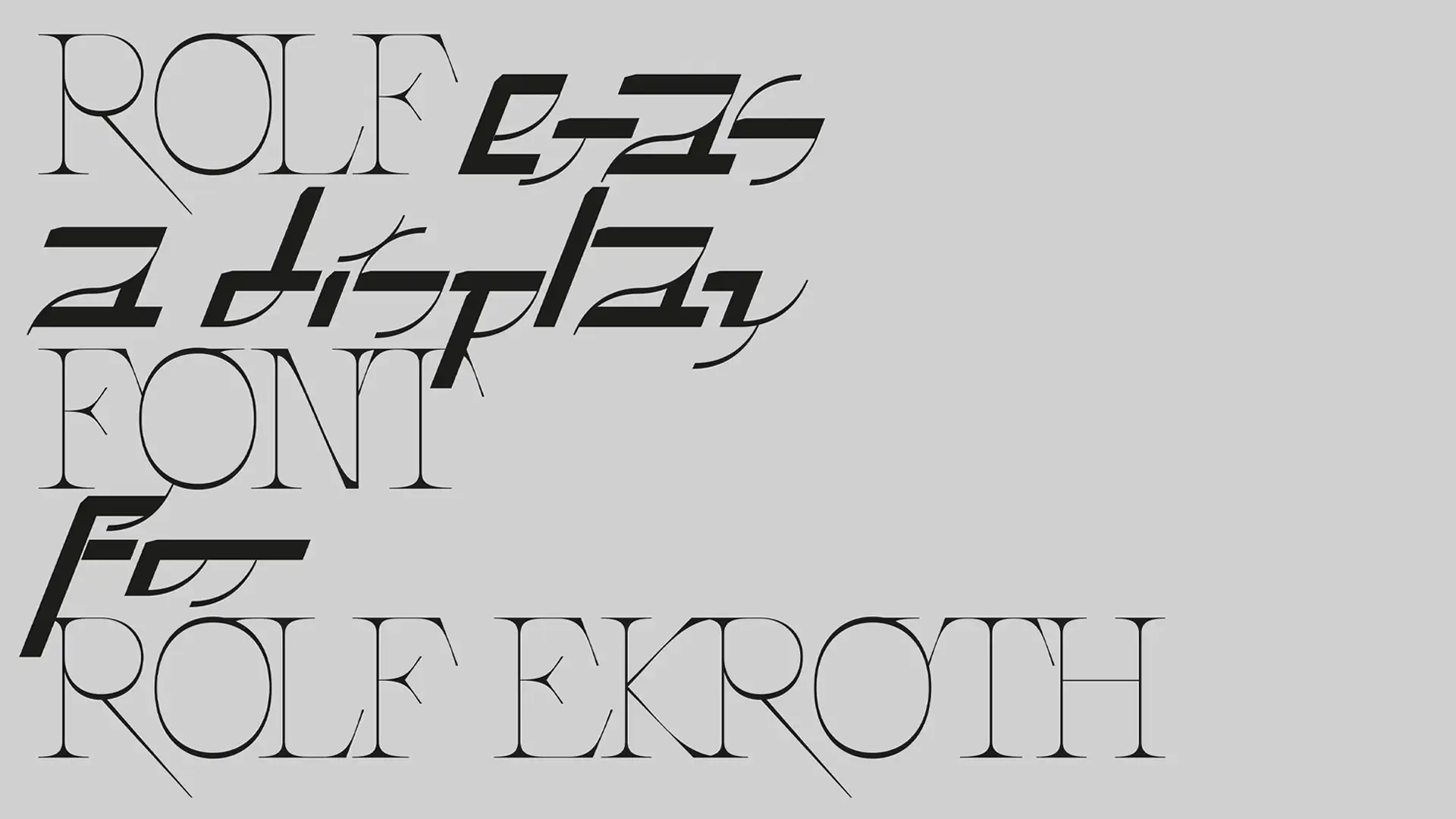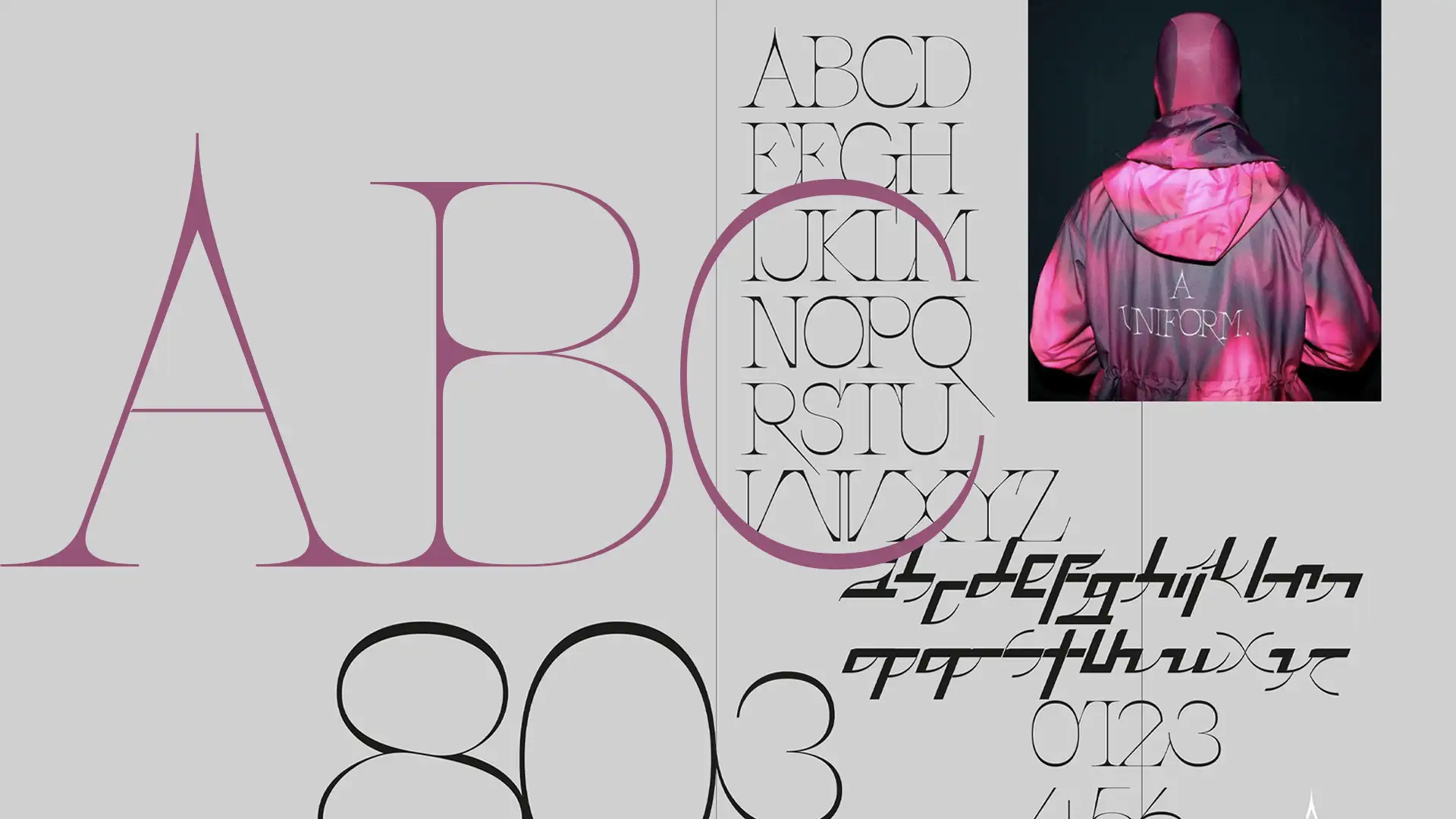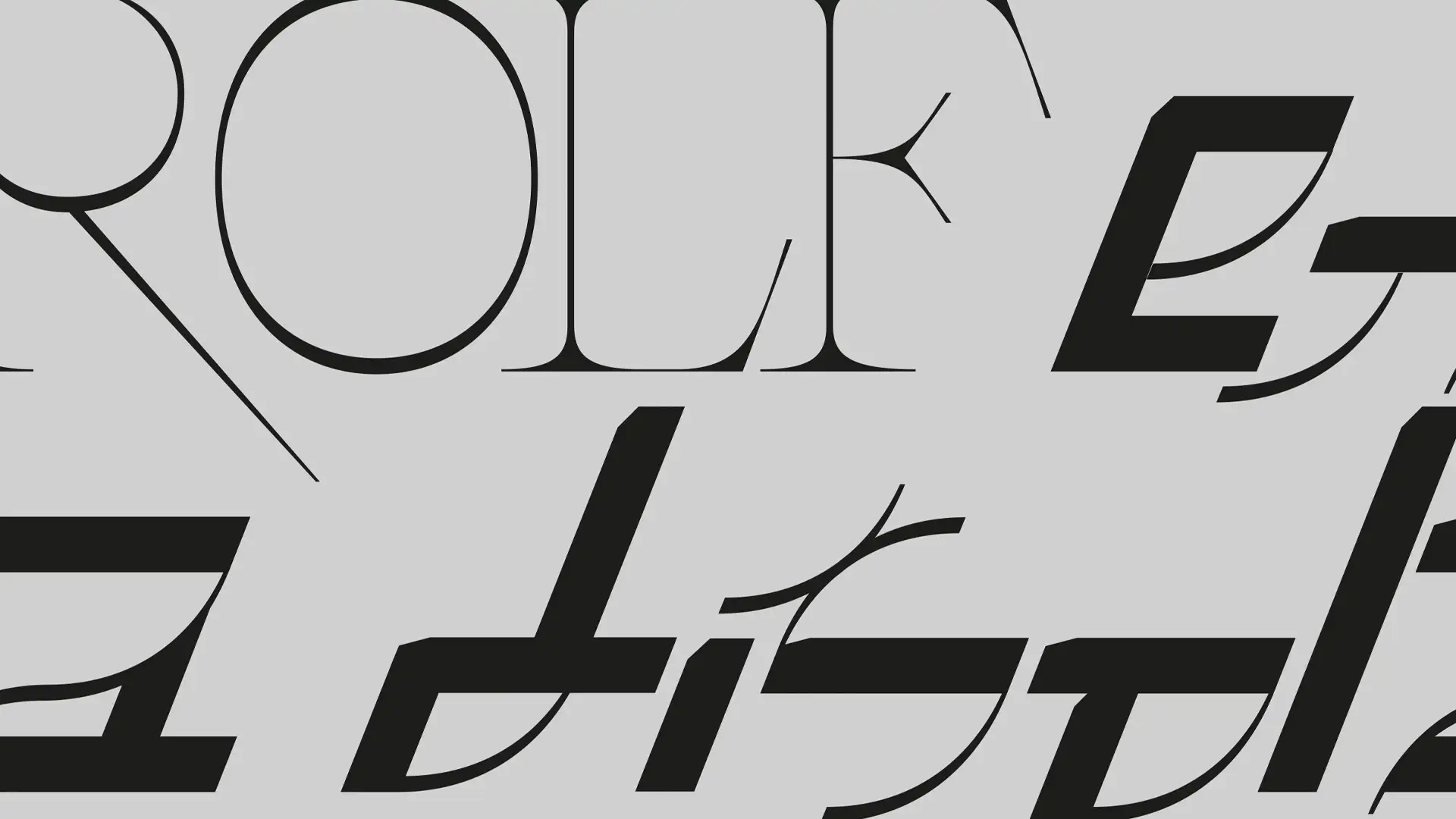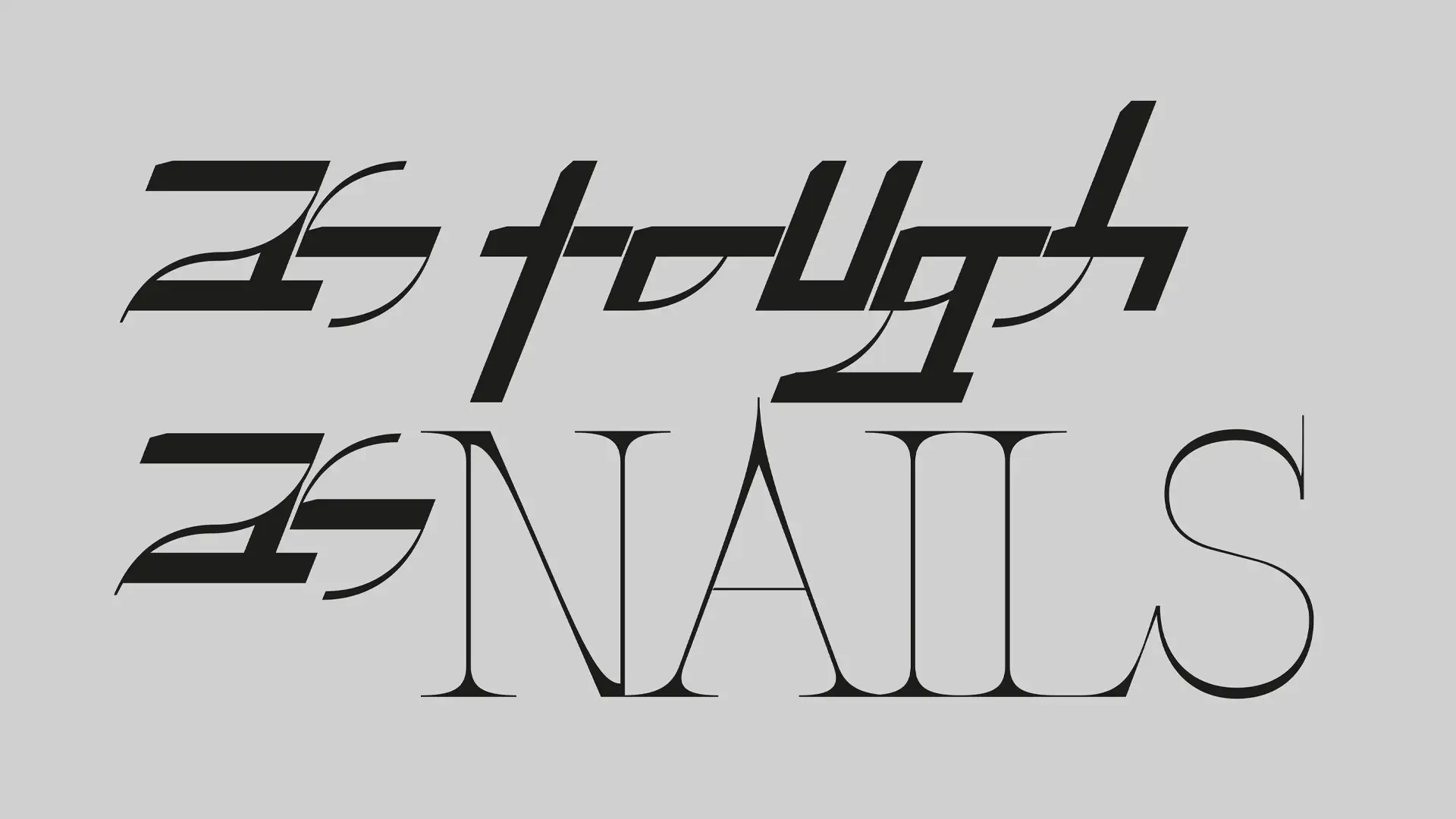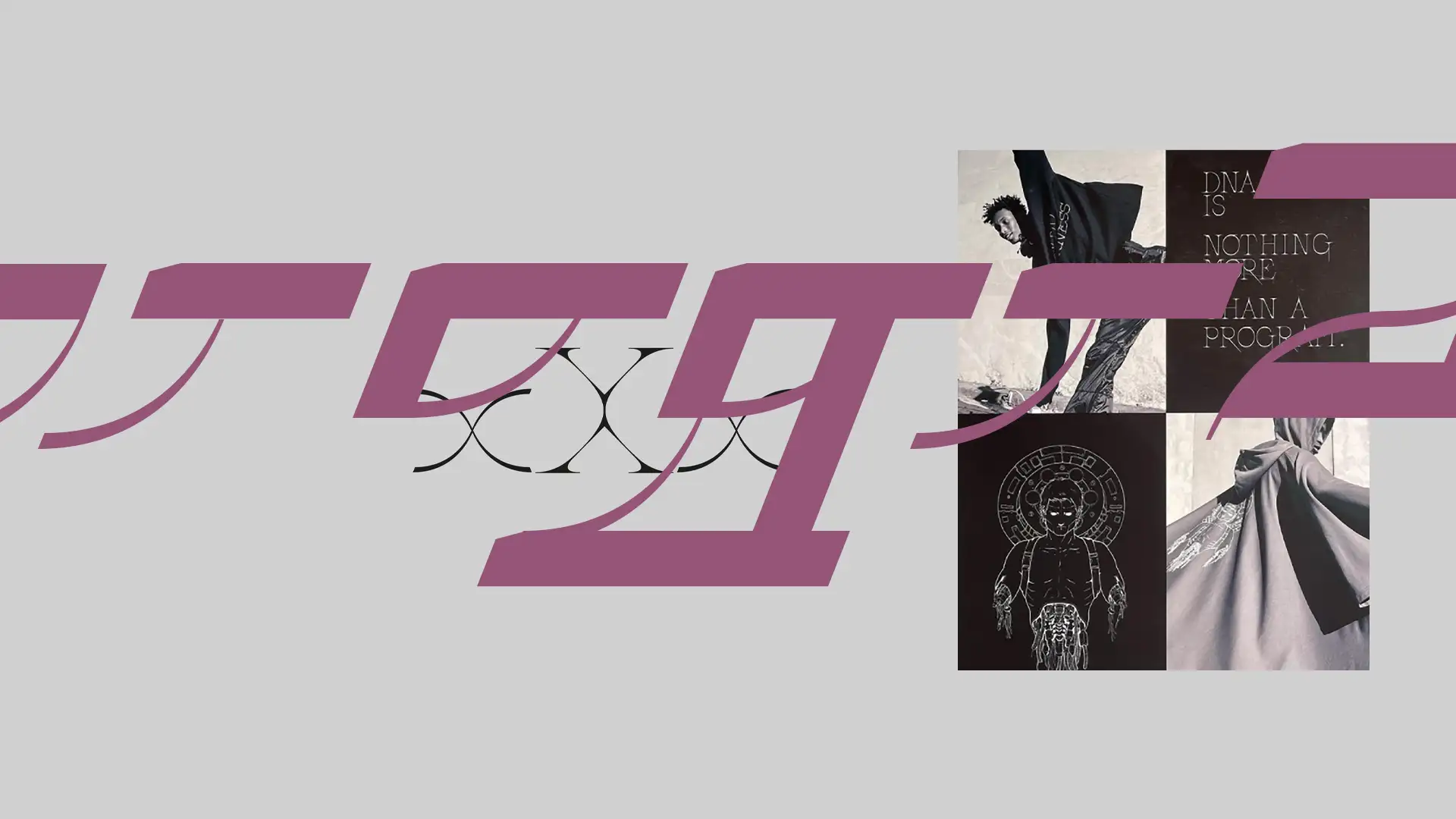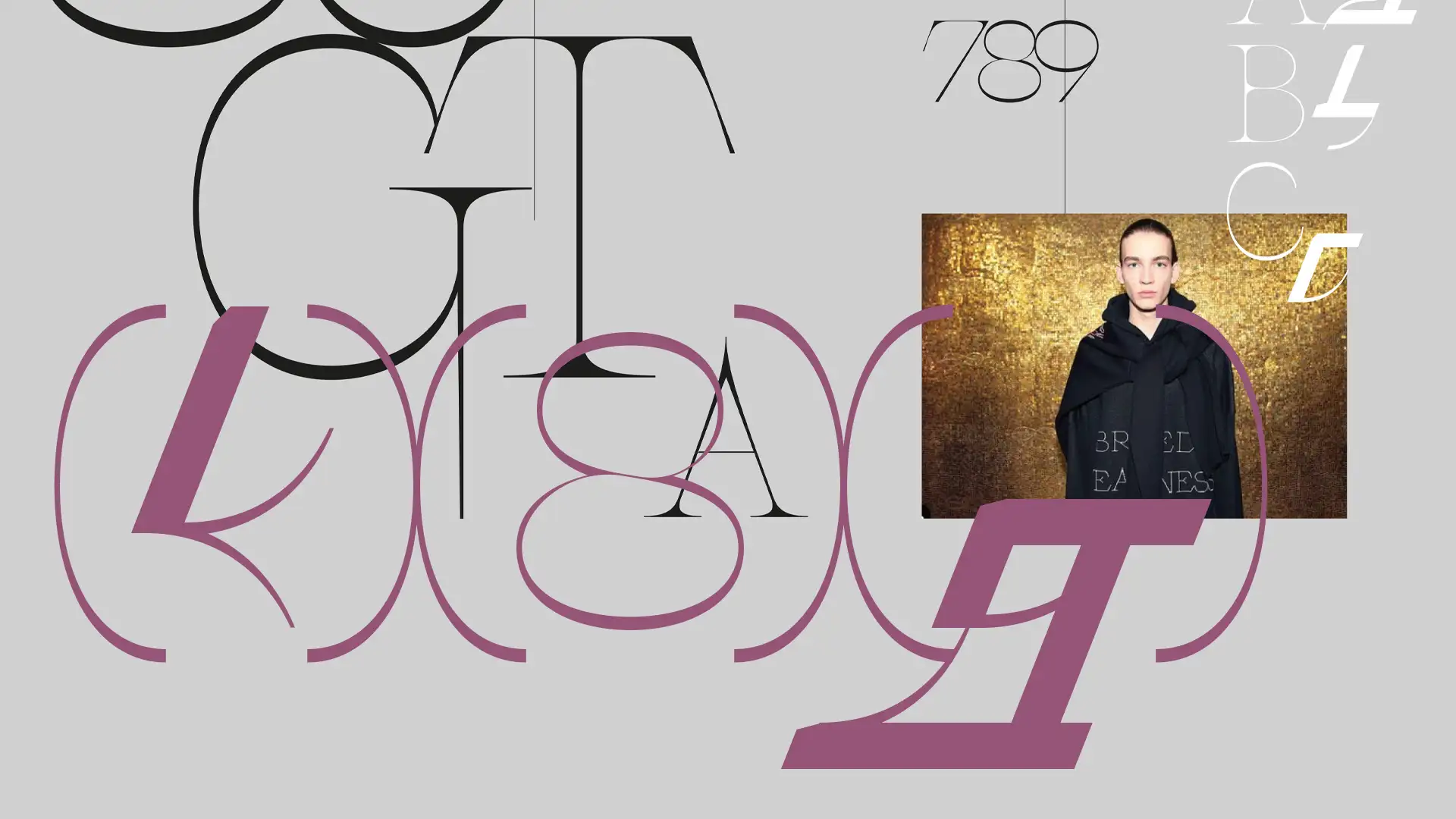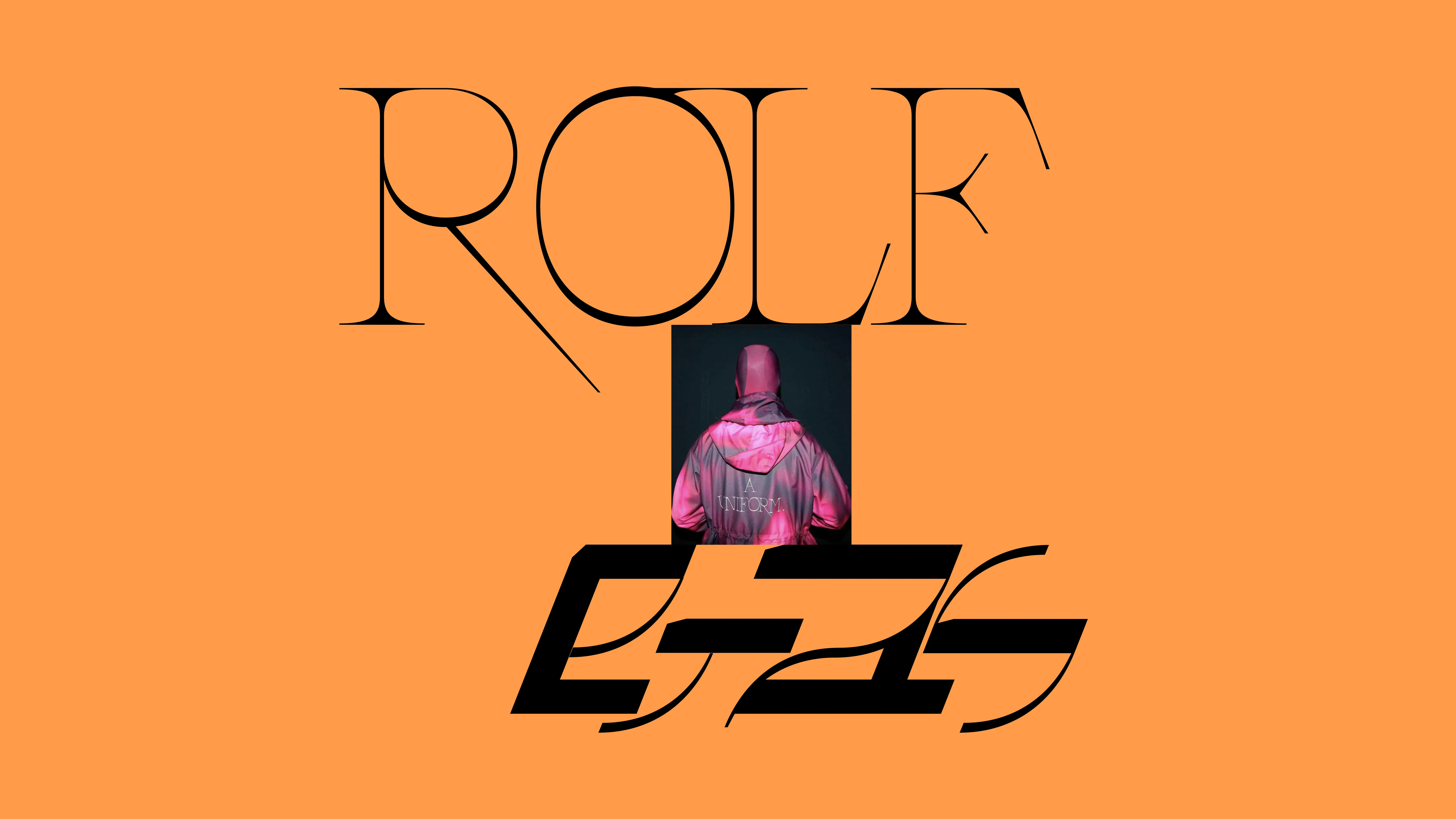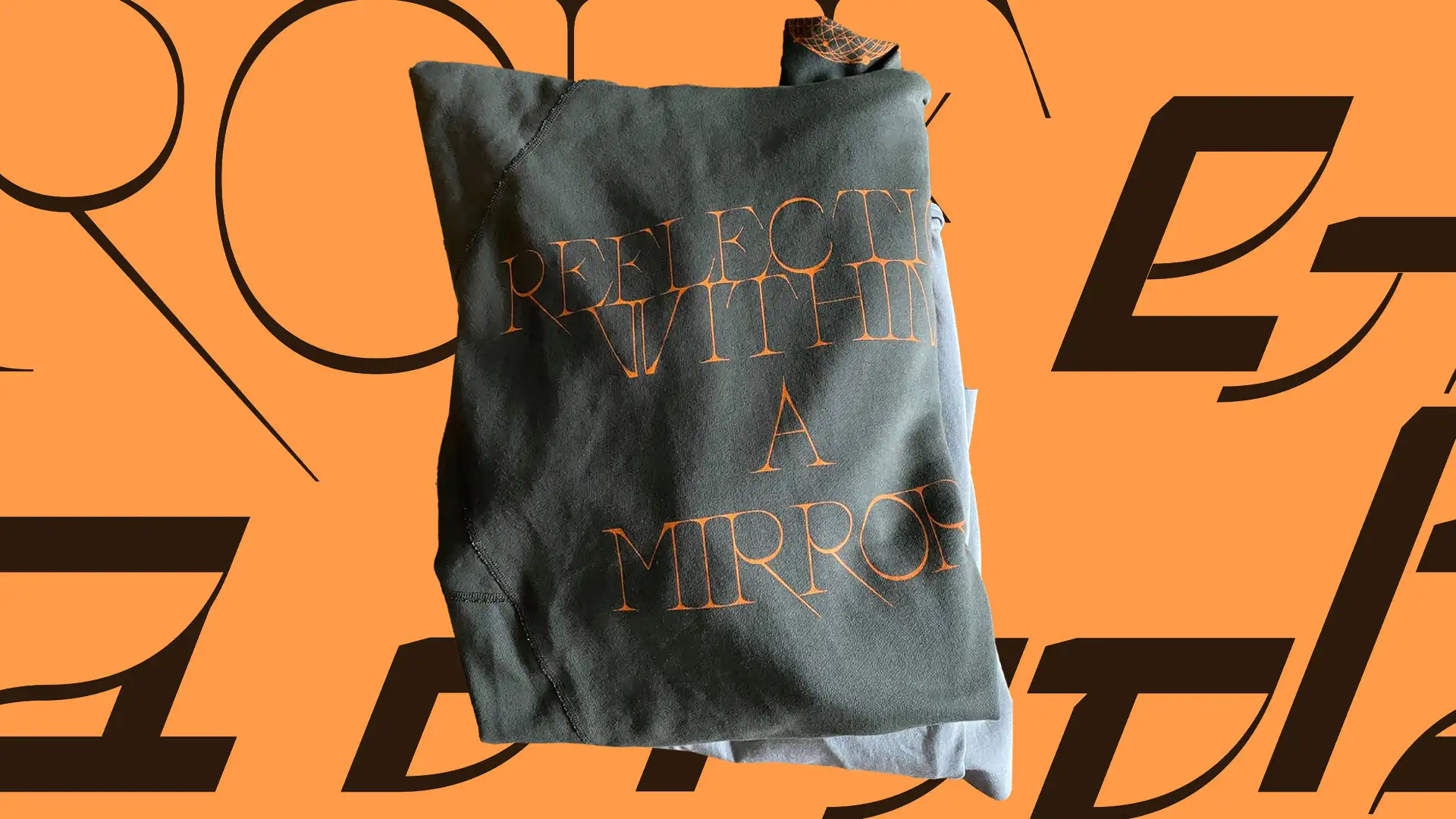
Rolf Ekroth is a Finnish fashion designer celebrated for merging streetwear with traditional Nordic influences, creating collections that are both nostalgic and forward-thinking. Ekroth extened his creative vision beyond fashion into every aspect of his brand by choosing Jaakko Suomalainen to collaborate by making a custom typeface. As seen in Ekroth's designs, the typeface also reflects the a balance of tradition, futurism and emotion.